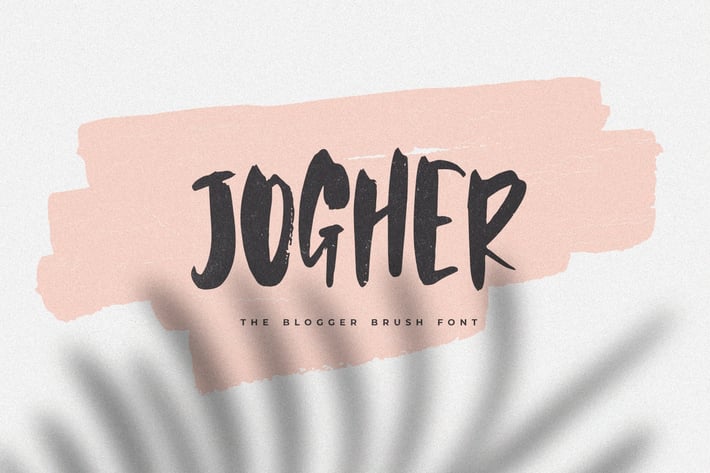
Jogher - The Blogger Brush Font
Introducing Jogher - The Blogger Brush Font. It comes with a brush texture style which is perfect to make any design stand out! This font is perfect for branding, wedding invites, magazines, mugs, business cards, quotes, posters, and more.